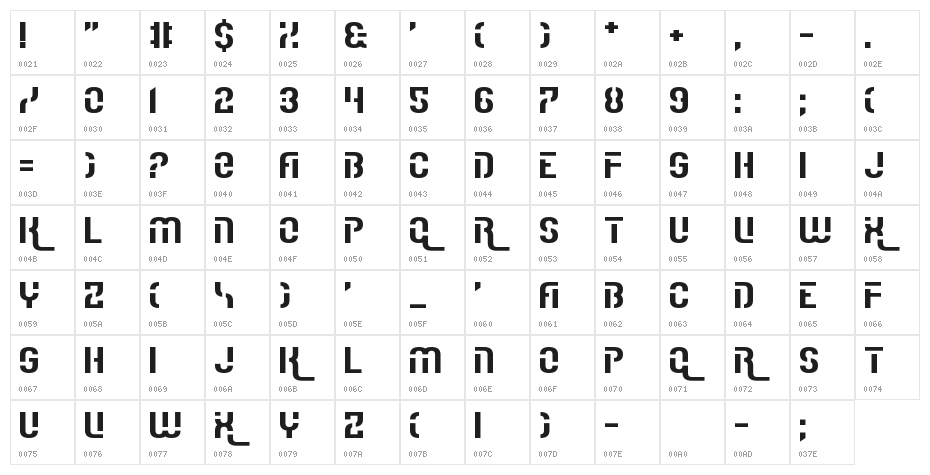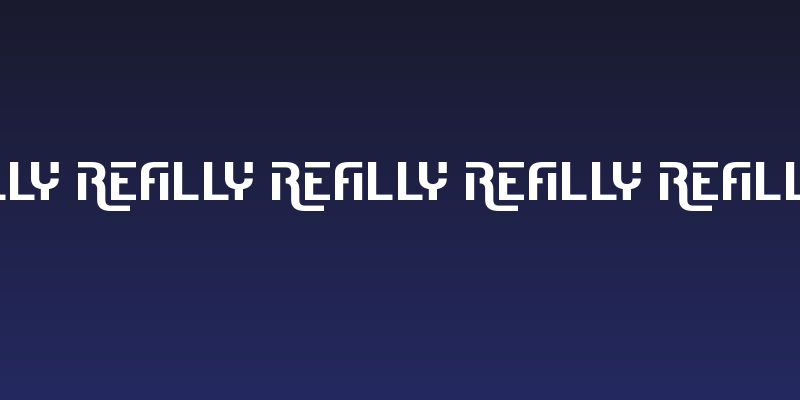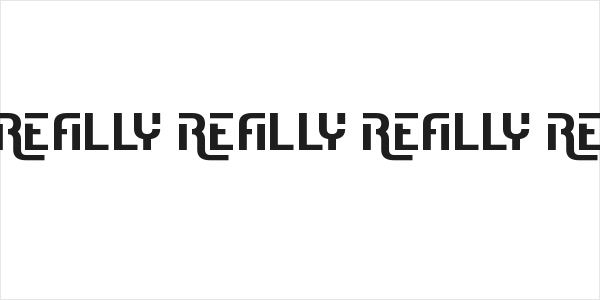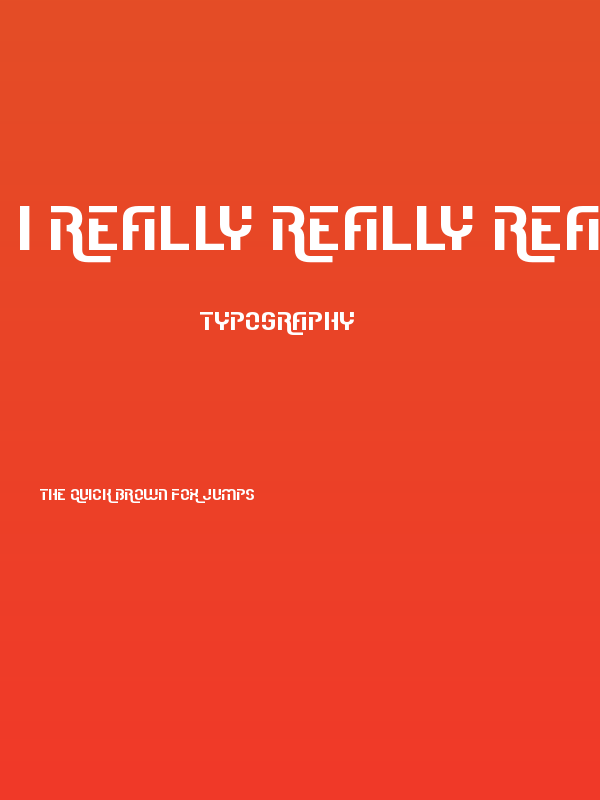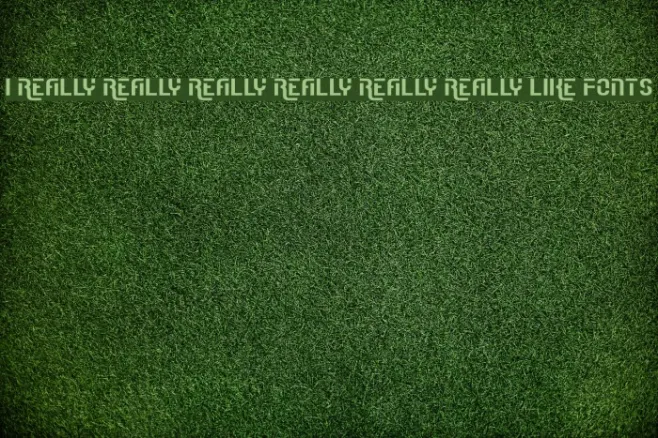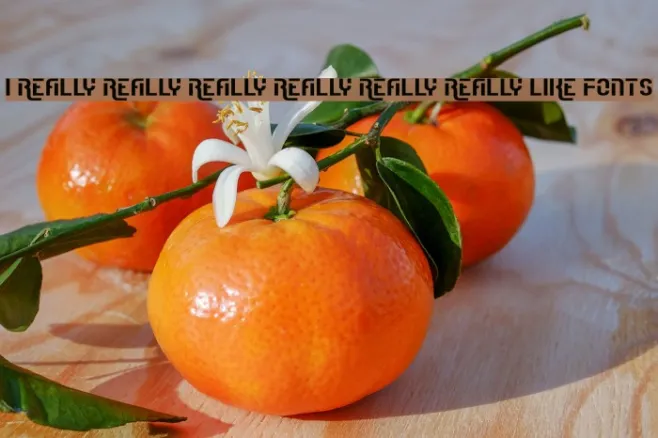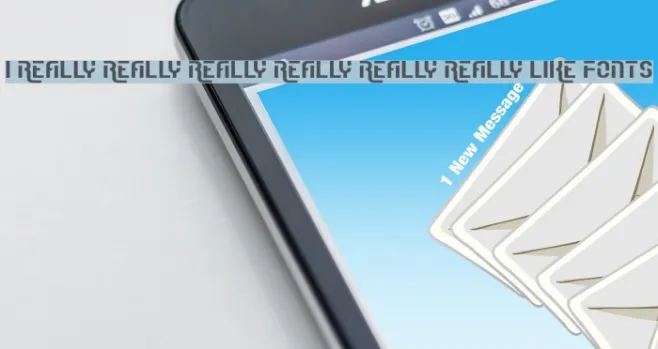
I Really Really Like Fonts Font
I Really Really Like Fonts Description
This font features a bold and geometric design with a modern twist. The characters are constructed with a unique blend of straight lines and rounded edges, creating a futuristic and industrial feel. The uppercase letters are particularly striking, with a consistent height and width that gives a uniform appearance. The numerals and special characters maintain this cohesive style, ensuring versatility across different uses. The overall aesthetic is both eye-catching and functional, making it suitable for a variety of design projects.
| Proposed Projects | Ideal for branding, posters, and digital media where a strong visual impact is needed. |